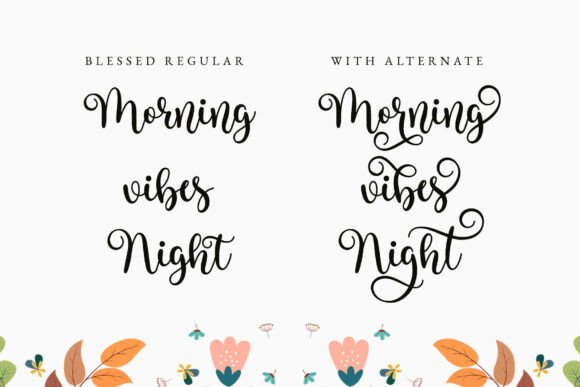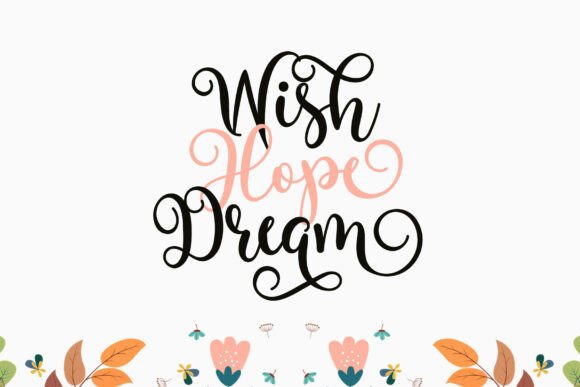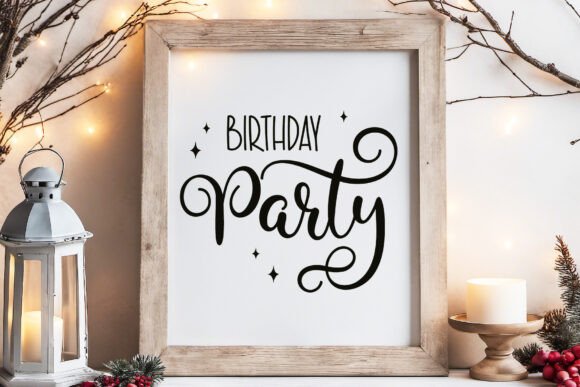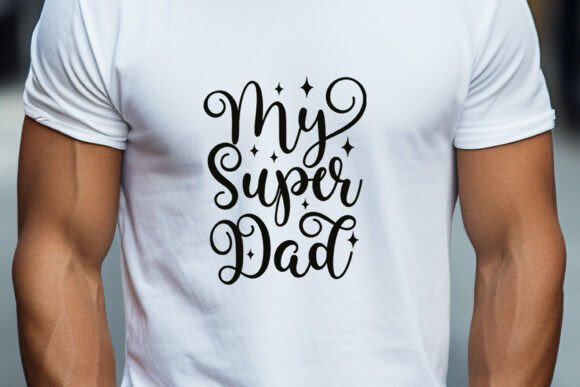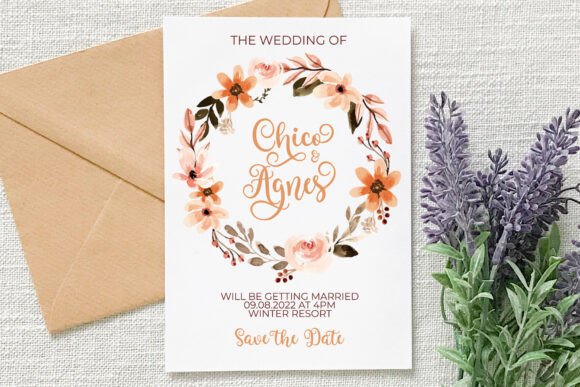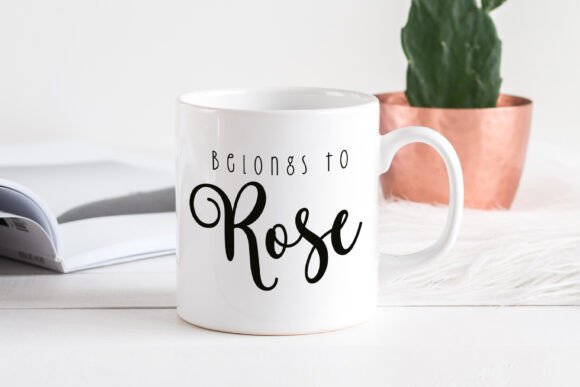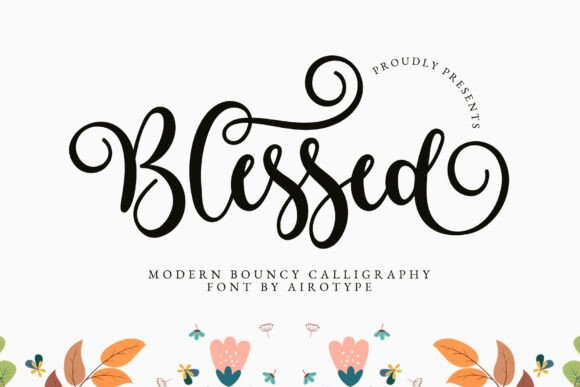
Introducing Blessed Font: Elevate Your Designs with Modern Script Calligraphy
In the world of digital design, fonts play a crucial role in conveying the tone and aesthetic of a project. For those seeking a modern, handwritten touch, the Blessed Font is an exceptional choice. This script calligraphy font is not only visually stunning but also versatile, making it perfect for a wide range of design applications.
What Makes Blessed Font Stand Out?
Blessed Font is a script calligraphy font that embodies modern vibes with its bouncy and swirling style. One of its standout features is the abundance of extra alternates, offering designers a rich palette of options to personalize their work. This font is specifically designed to add a touch of elegance and sophistication to any design project.
Ideal for Modern Handwritten Designs
Whether you’re working on a wedding design, invitation, birthday card, t-shirt design, crafting project, sticker, or sublimation, Blessed Font is the perfect companion. Its modern handwritten style breathes life into any design, making it more engaging and visually appealing. The font’s versatility ensures that it can be used across various platforms and mediums, from digital screens to print materials.
Key Features of Blessed Font
- Modern Vibes: Blessed Font boasts a contemporary script calligraphy style that instantly elevates your designs.
- Bouncy and Swirl: The font’s dynamic and fluid strokes add a playful yet sophisticated touch to any project.
- Tons of Extra Alternates: With numerous alternate characters, designers have the flexibility to create unique and customized designs.
- Highly Versatile: Suitable for a wide range of design projects, including weddings, invitations, birthdays, t-shirts, crafting, stickers, sublimation, and more.
Applications of Blessed Font
The applications of Blessed Font are vast and varied. Here are some of the most popular uses:
Wedding Designs
From wedding invitations to ceremony programs and wedding favors, Blessed Font adds a romantic and elegant flair to any wedding-related design.
Invitations and Birthday Cards
Create personalized and stylish invitations and birthday cards that stand out with Blessed Font’s unique charm.
T-Shirt Designs
Design eye-catching t-shirts with Blessed Font for a modern and trendy look that’s sure to appeal to fashion enthusiasts.
Crafting and DIY Projects
For crafters and DIY enthusiasts, Blessed Font is a valuable asset for creating custom stickers, decals, and other craft supplies with a personal touch.
Sublimation and More
Blessed Font is also perfect for sublimation projects, adding a professional and bespoke feel to mugs, tumblers, and other personalized items.
Tips for Using Blessed Font Effectively
To maximize the impact of Blessed Font, consider the following tips:
- Mix and Match: Experiment with different alternates to find the perfect combination for your design.
- Play with Sizes: Varying font sizes can add depth and interest to your design.
- Pair with Solids: Pairing Blessed Font with solid colors or simple backgrounds can make your design pop.
Blessed Font is a powerful tool for designers and crafters looking to infuse their projects with a modern, handwritten touch. Its versatility, paired with its elegant and bouncy style, makes it an invaluable asset for a wide range of design applications. Whether you’re working on a wedding design, t-shirt, or crafting project, Blessed Font is sure to elevate your work and make it stand out.